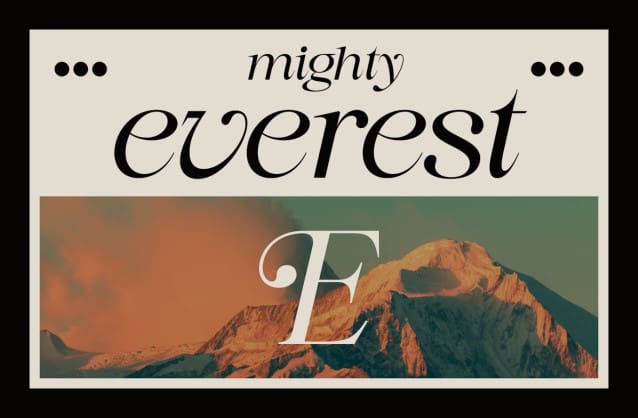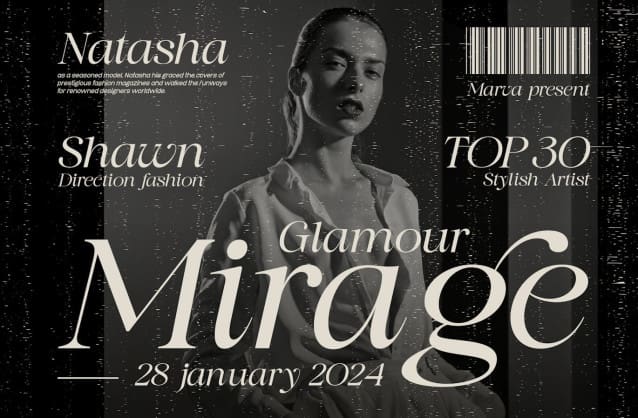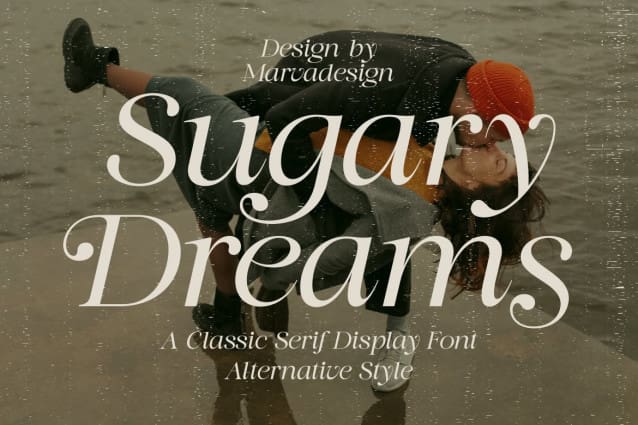
Sugary Dreams Font
Sugary Dreams Font – A Serif Display Font SugaryDreams – An authentic display font with Serif Display Font. The font is suitable for all branding projects like Logo, Template Design, Products and many more. It is exceptional in a wide range of contexts